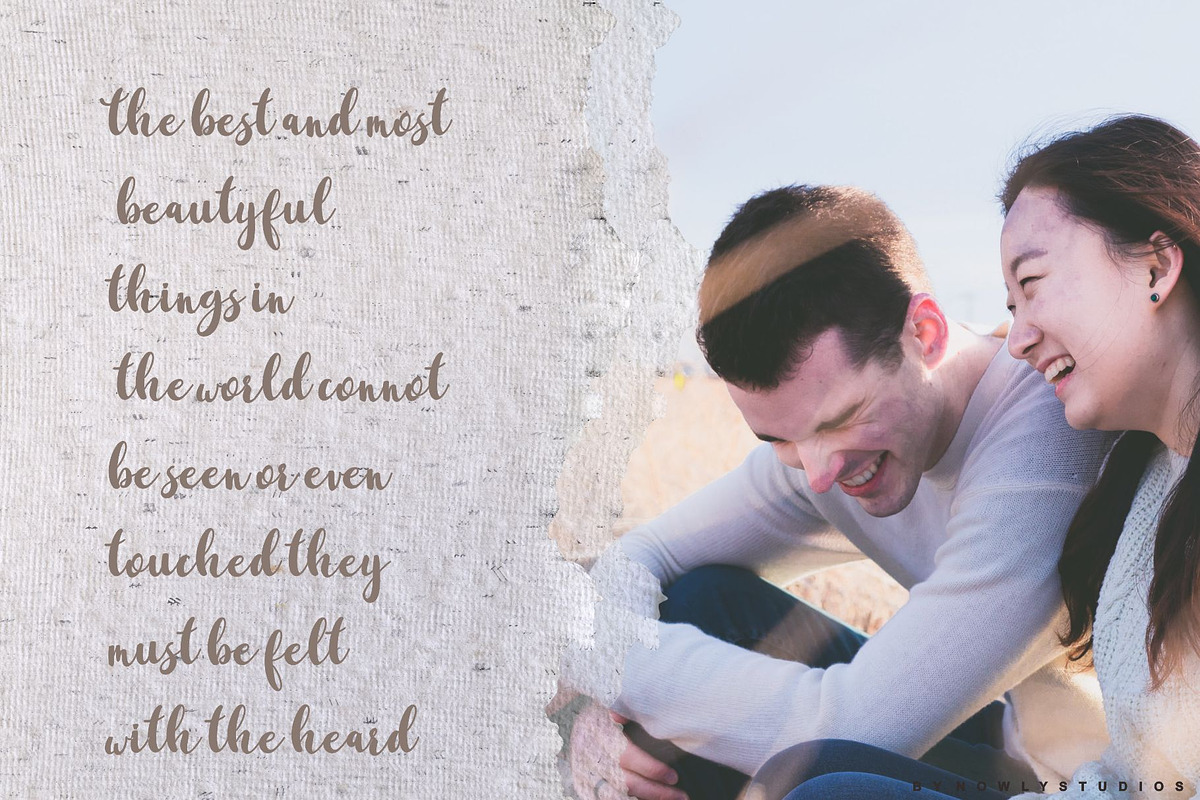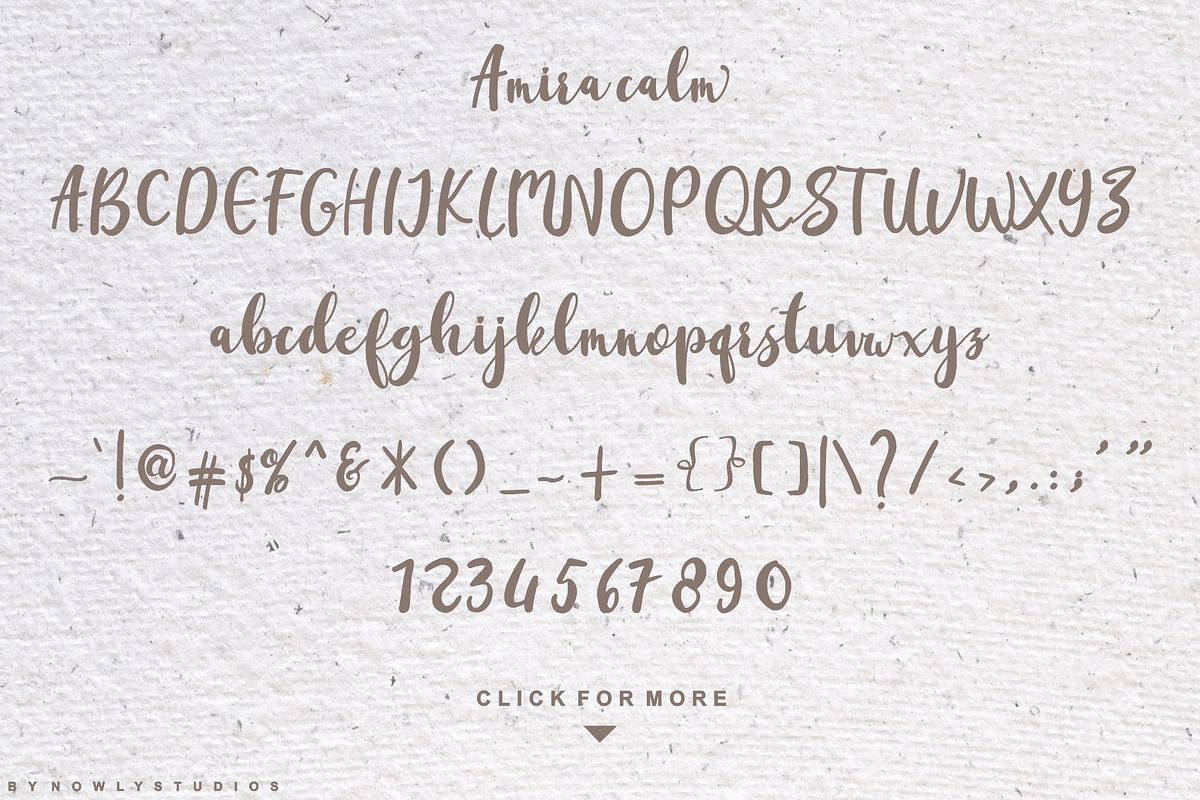
Amira Calm
Amira Calm is a script font. Amira Calm is equipped with plenty of OpenType features: To activate the alternates click on Swash, and Stylistic Alternates in any OpenType savvy program or manually select the characters from Glyph Palette.